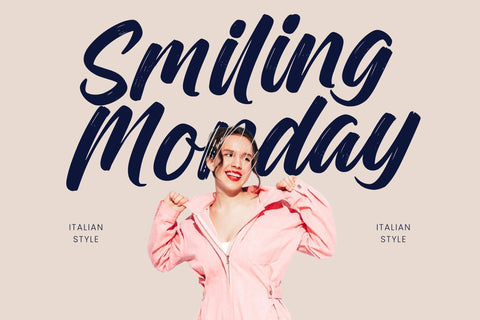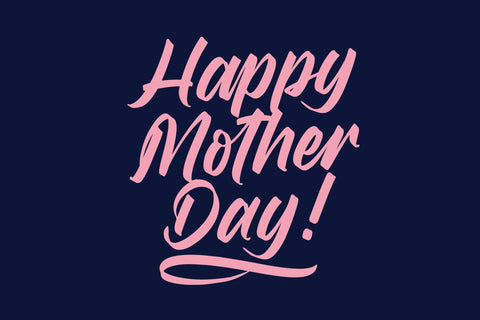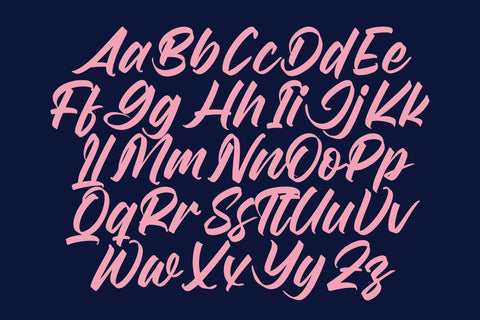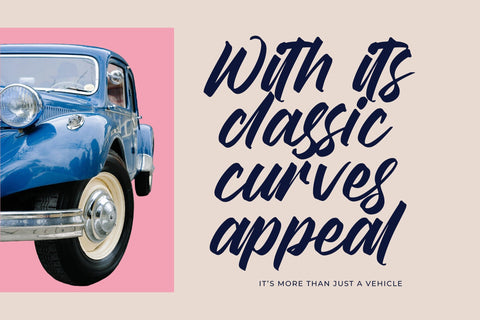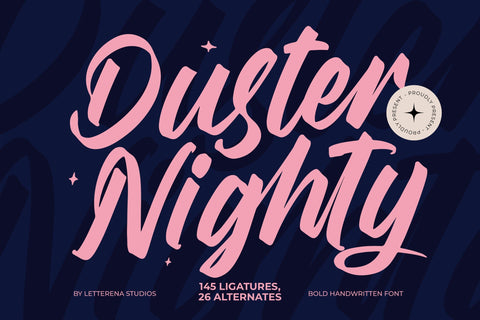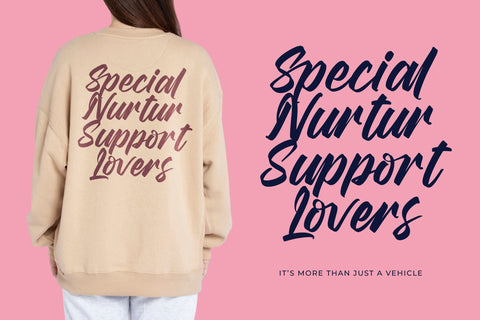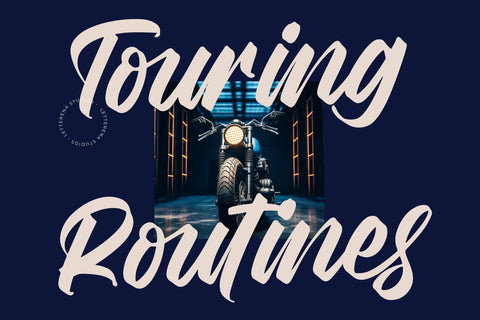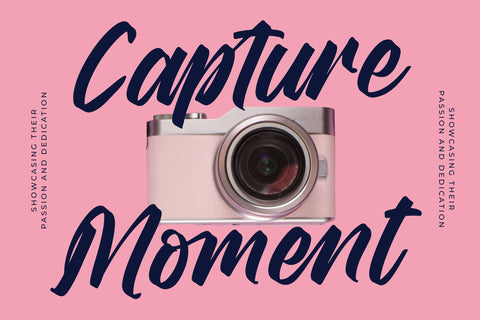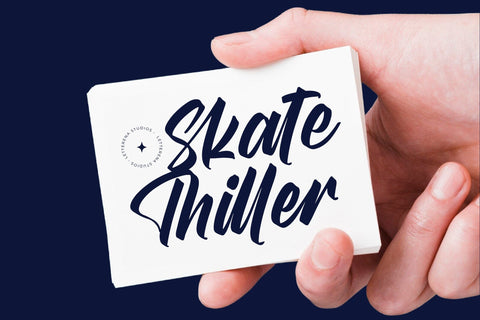
Duster Nighty - Bold Handwritten Font
Duster Nighty - Bold Handwritten Font , from Letterena, is a Luxury Script font, suitable for any projects such as: logos, branding projects, homeware designs, product packaging, mugs, quotes, posters, shopping bags, t-shirts, book covers, name card, invitation cards, greeting cards, label, photography, watermark, special events, and all your other luxury and beautiful projects that need a Luxury Script taste.
145 Ligature 26 Alternate & Swashes